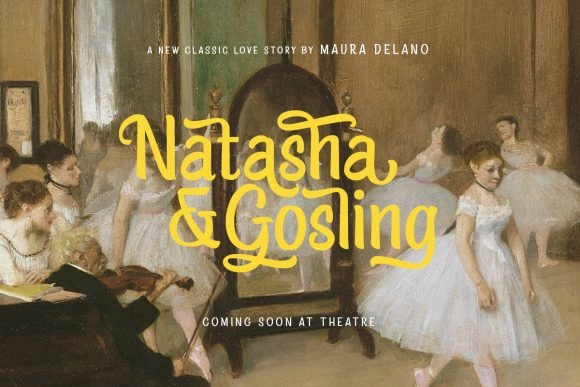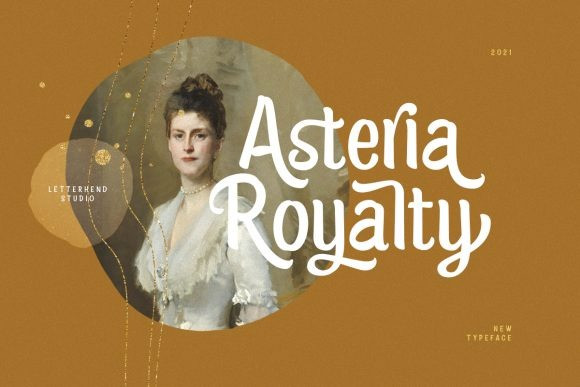
Asteria Royalty Display Font
Asteria Royalty is a vintage styled, organic and distinct display font. Whatever the topic, this font will be a wonderful asset to your font library, as it has the potential to enhance any creation. This font is PUA encoded which means you can access all glyphs and swashes with ease!